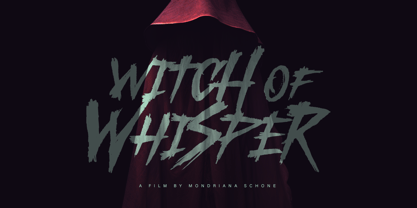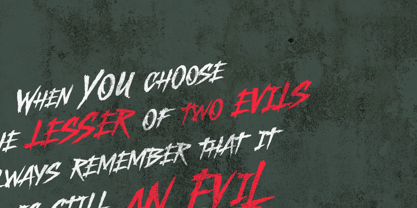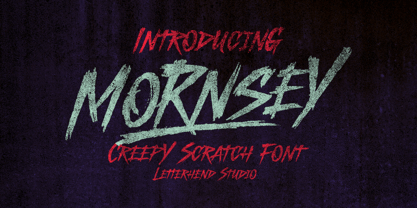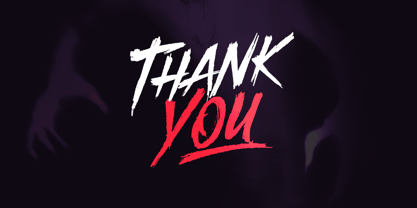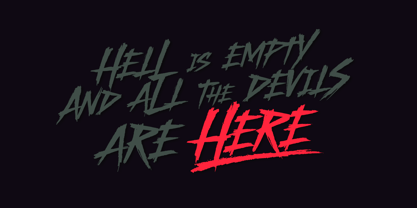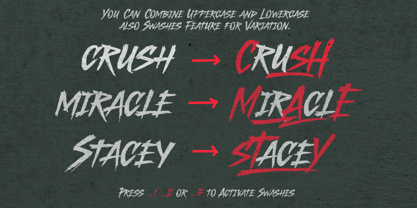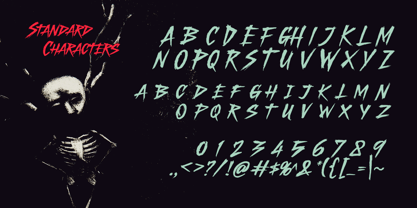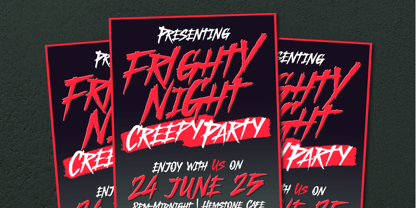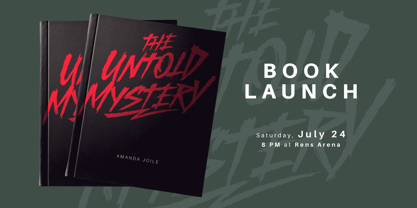
Mornsey
by Letterhend
The Mornsey Font Family was designed by Hendry Juanda and published by Letterhend. Mornsey contains 1 styles. More about this family
Mornsey is a bold, gritty scratch font that sets the tone for horror, thriller, and dark-themed designs. Its jagged strokes and hand-drawn texture create an unsettling, chaotic vibe—ideal for movie posters, haunted house branding, book covers, or any project needing a raw edge. With sharp, distressed lettering, Mornsey delivers not just words but an atmosphere that screams intensity and fear. Features include: uppercase and lowercase letters, numbers, punctuation, alternates/ligatures, multilingual support, and PUA encoding.
Designers: Hendry Juanda
Foundry: Letterhend